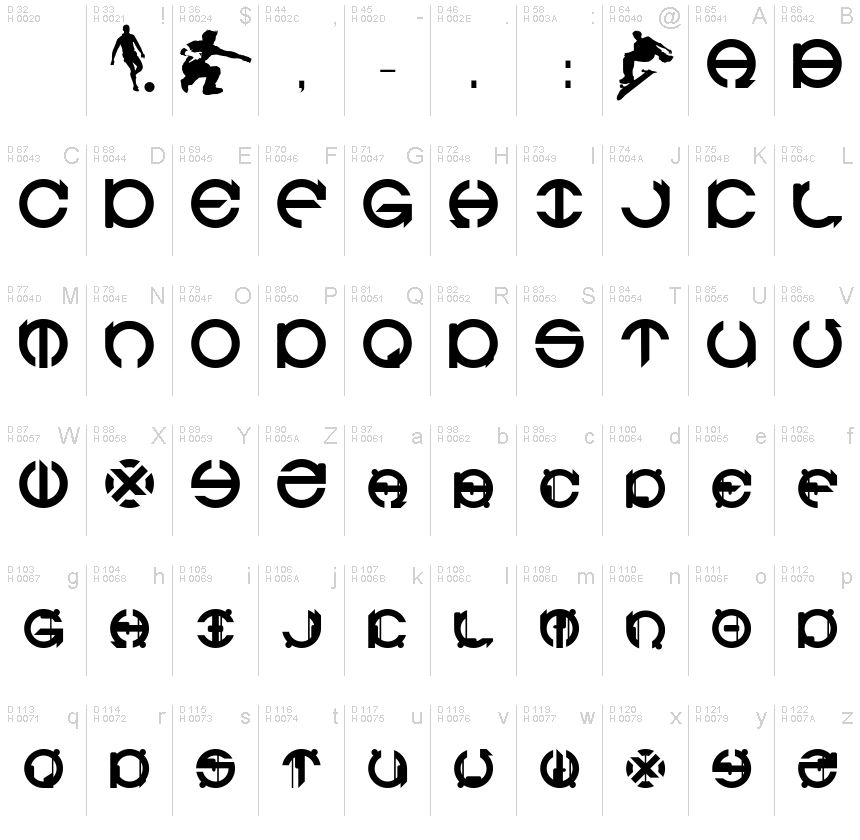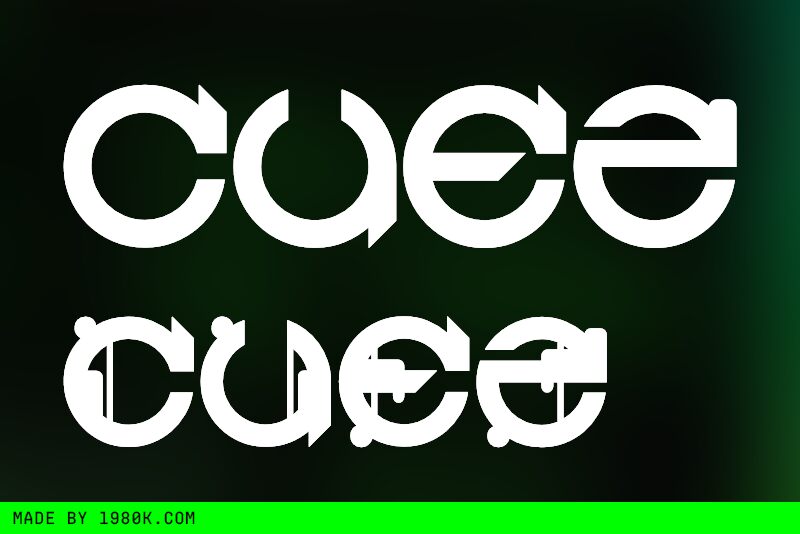
Cuez_Ver6
Cuez Ver6 font, part of the Cuez family and crafted by 1980k.com, is a striking display typeface that embodies a futuristic style. Its expanded width offers a bold and eye-catching presence, perfect for making statements in contemporary design projects. This free font serves as an excellent choice for innovative branding, dynamic posters, and tech-forward websites.
Ideal for designers seeking a distinctive flair, this display font promises to elevate any project with modern sophistication.